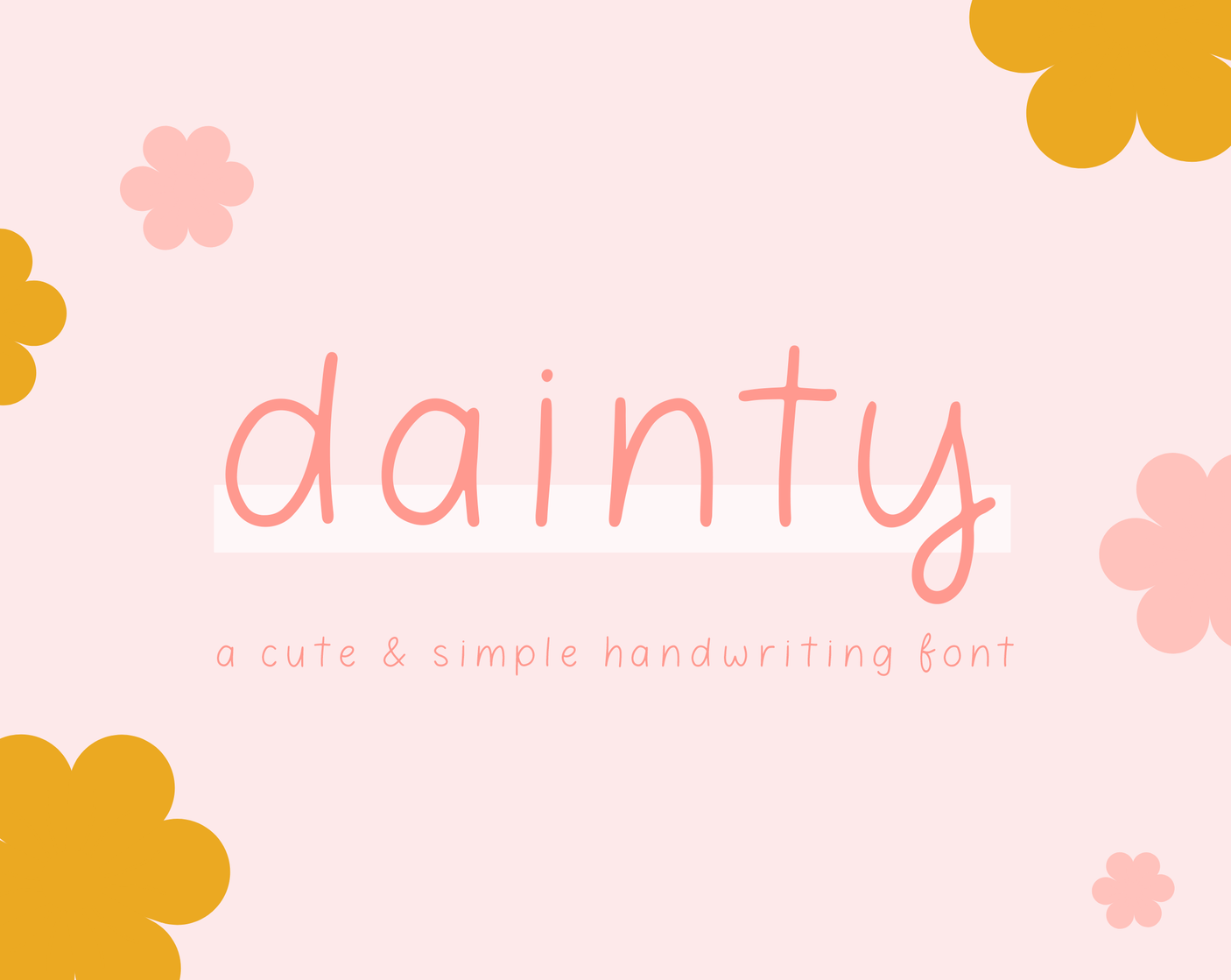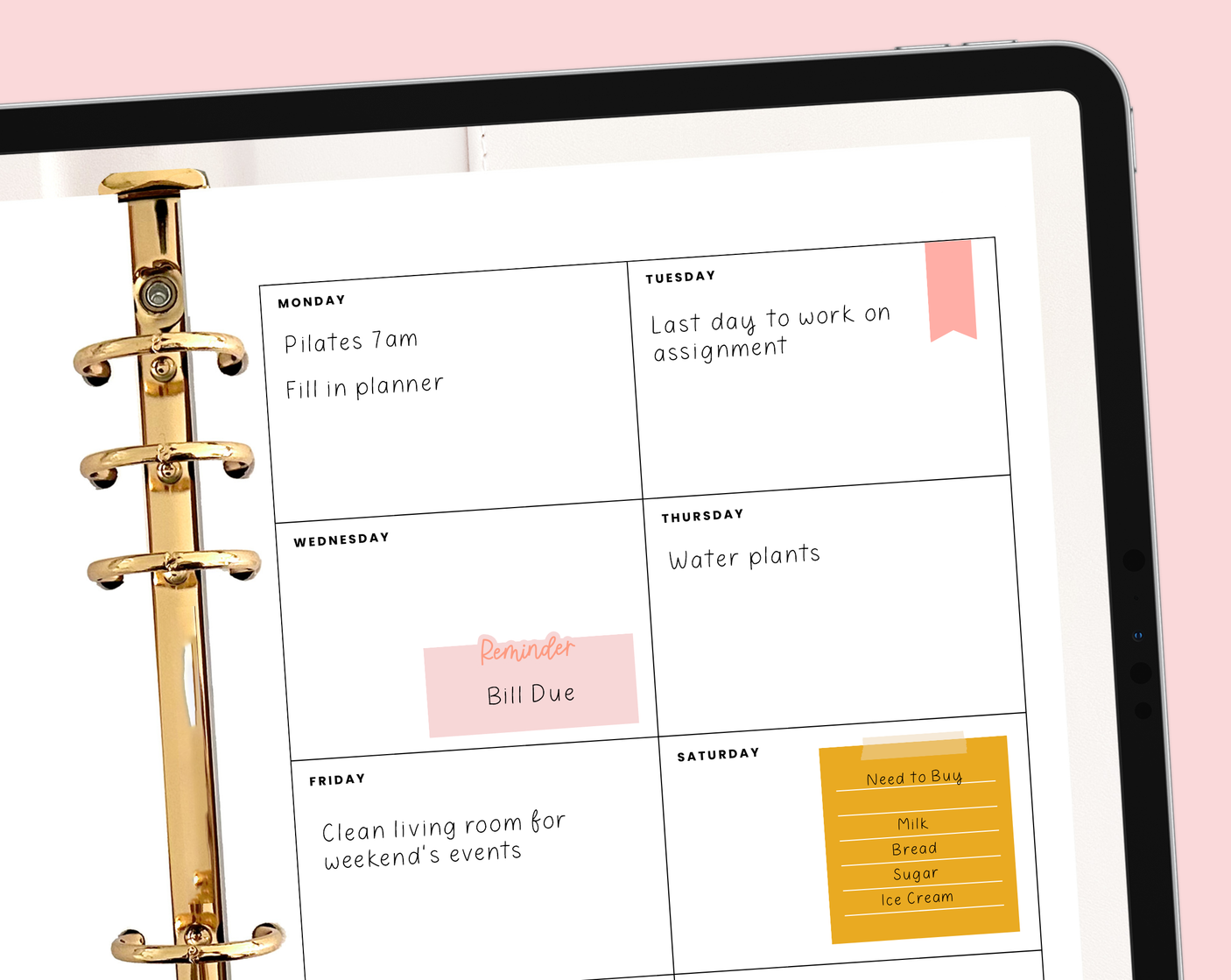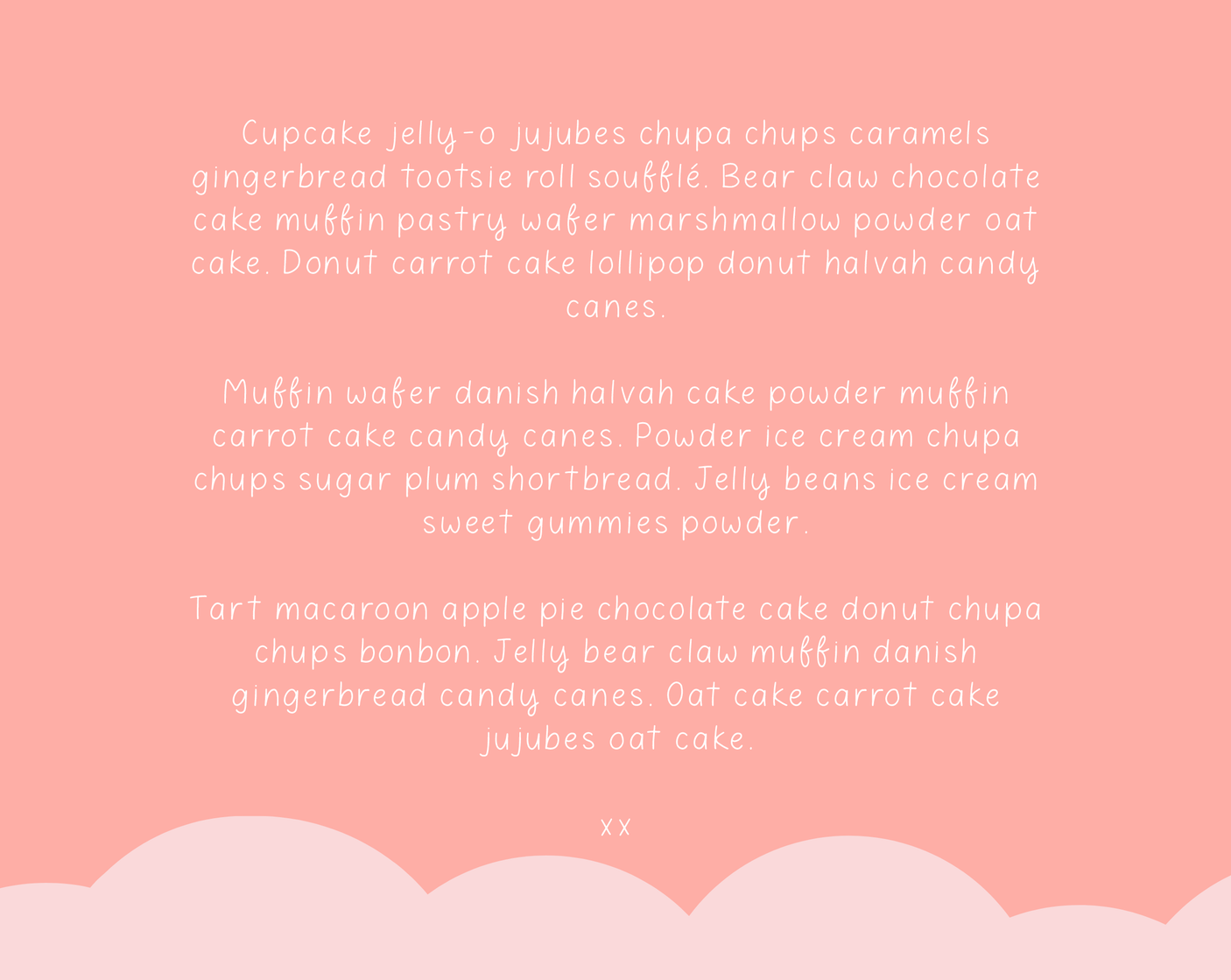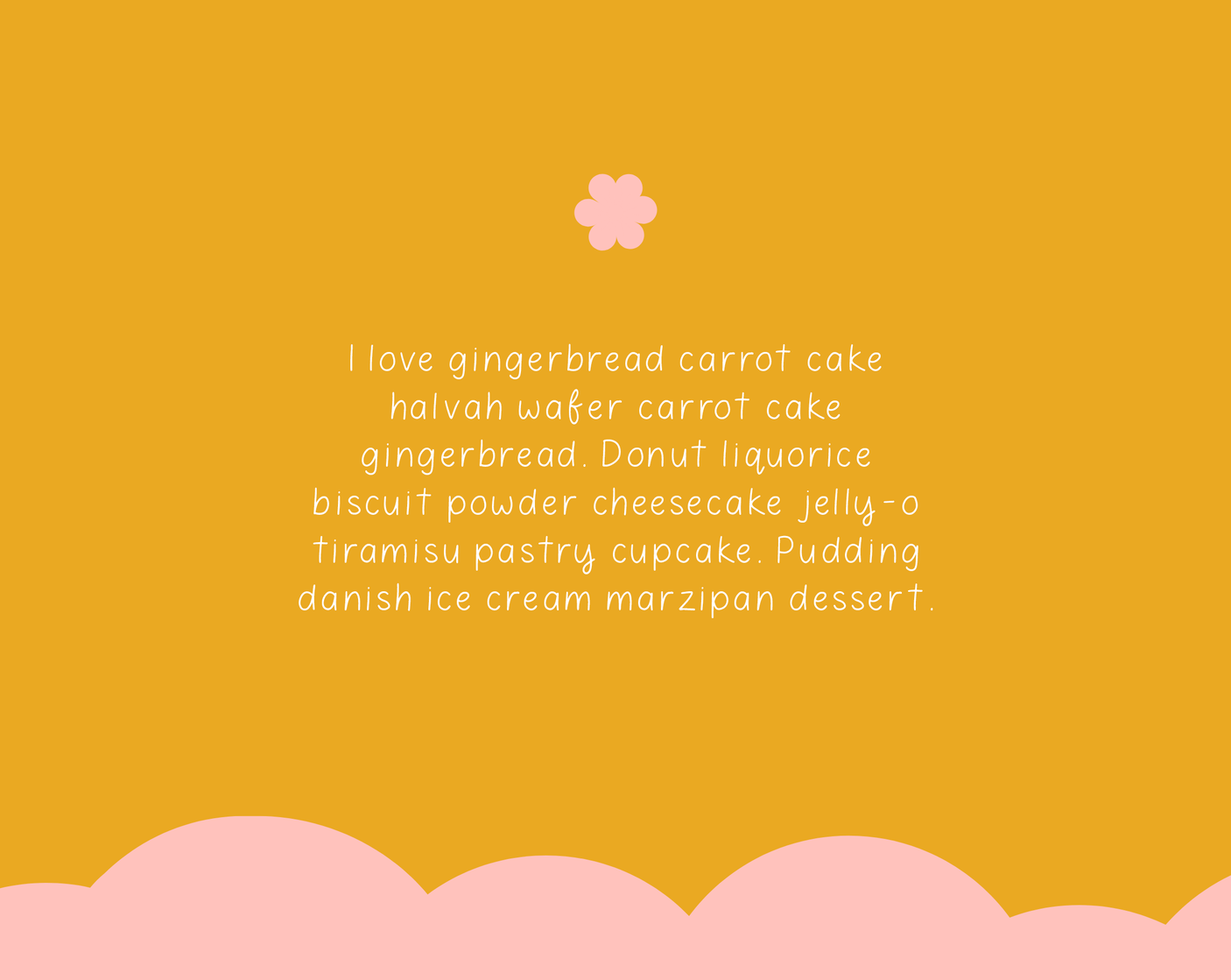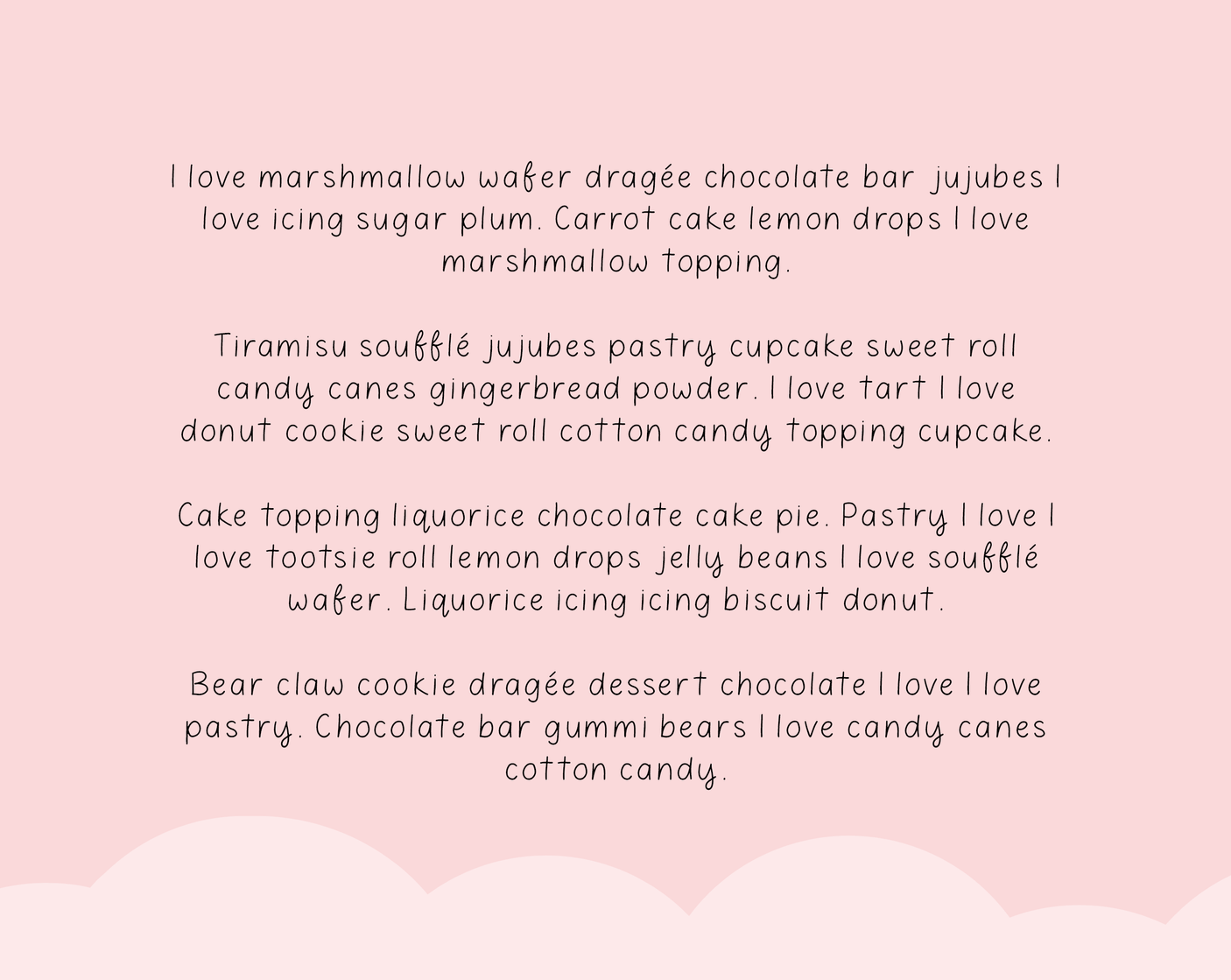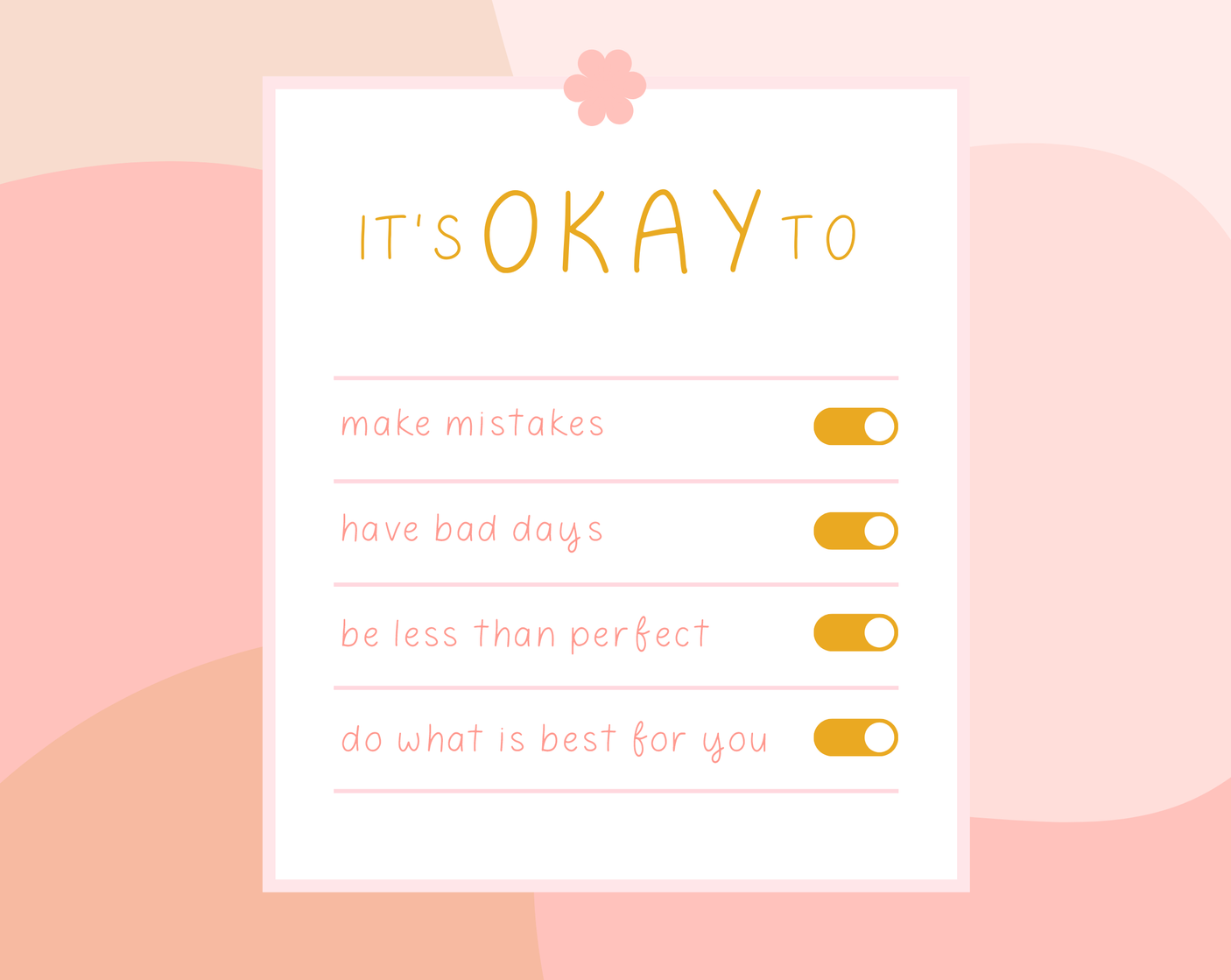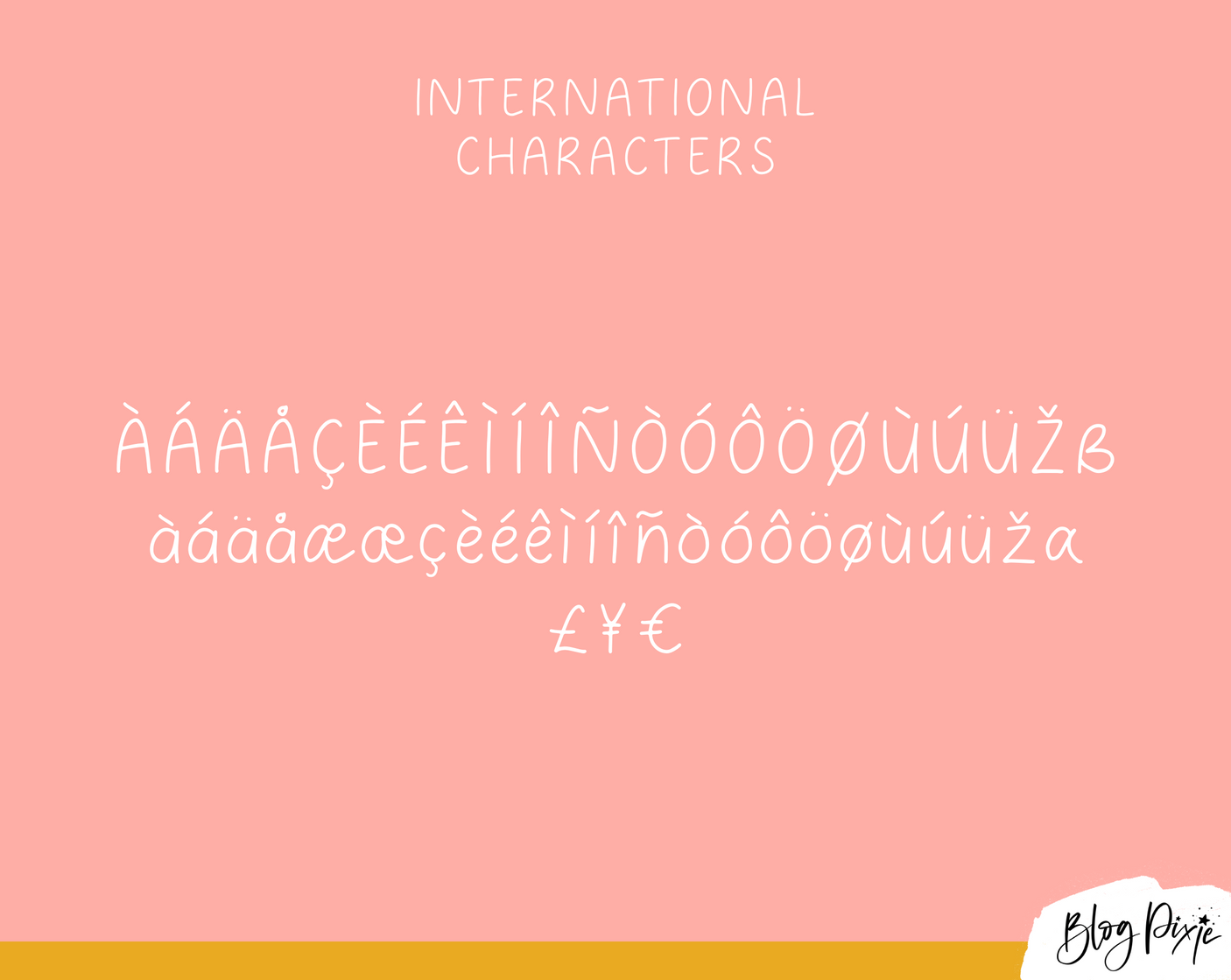
Dainty Font
Handwriting font for Goodnotes called Dainty. This font can be also be used in Cricut, Procreate, Photoshop, Canva and more. It’s a neat and simple handwritten font for digital planning, note-taking, logos and digital projects.